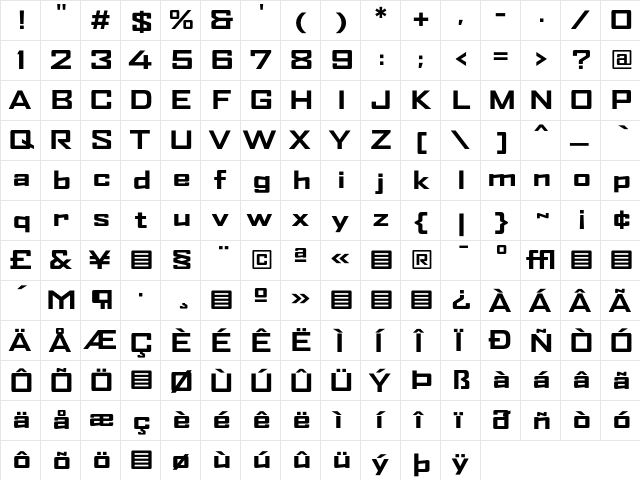
AgencyFB BoldExtended Font Preview
AgencyFB BoldExtended
Design Context for AgencyFB Typeface
AgencyFB is a composed and adaptable typeface that performs quietly and consistently across a wide range of design contexts. The heavy weight commands attention and anchors typographic hierarchies.
Pro Tip: Pair AgencyFB with a font of contrasting weight or personality to build a more expressive typographic hierarchy.